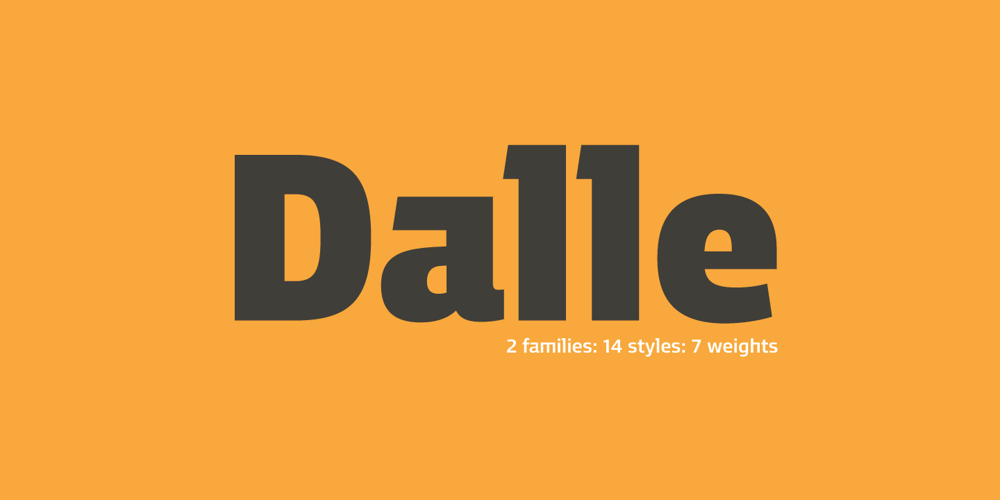
Dalle
Dalle font
Dalle Font Family was designed by Stawix Ruecha and published by Stawix. Dalle contains 28 styles and family package options. Dalle was designed in 2012 by Stawix Ruecha, and has been continued to develop over the last two years in order to keep pace with the changing trends and to apply for different uses. Dalle comes with a large font family and is ideally suited for body texts and also display. This typeface has OpenType features including multi-ligatures support and tabular figures. Add Dalle (Sans) in your font menu and spice up your layouts with this new flavour!